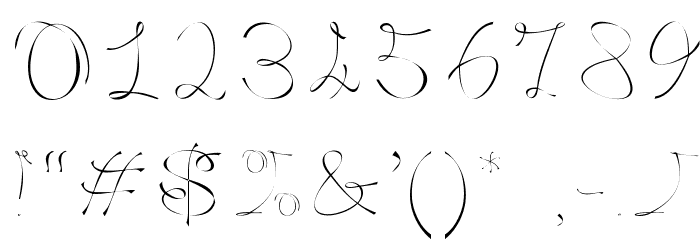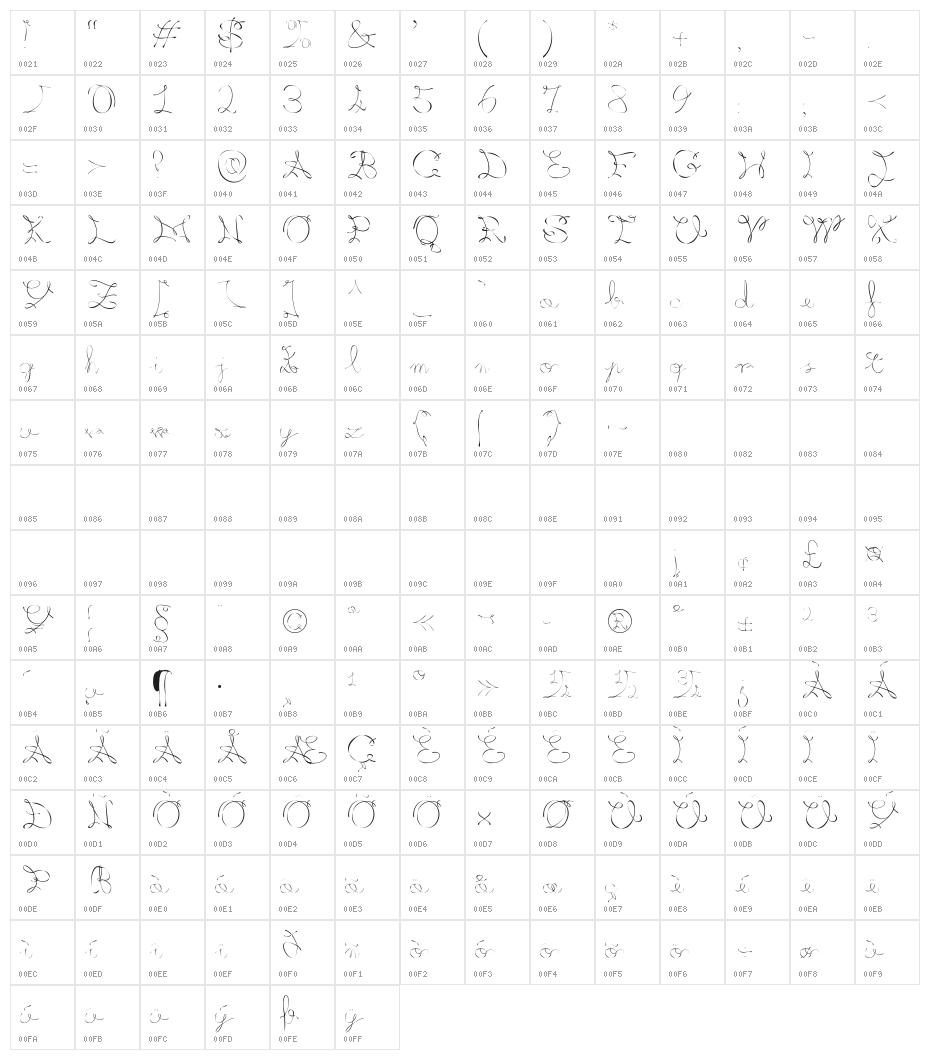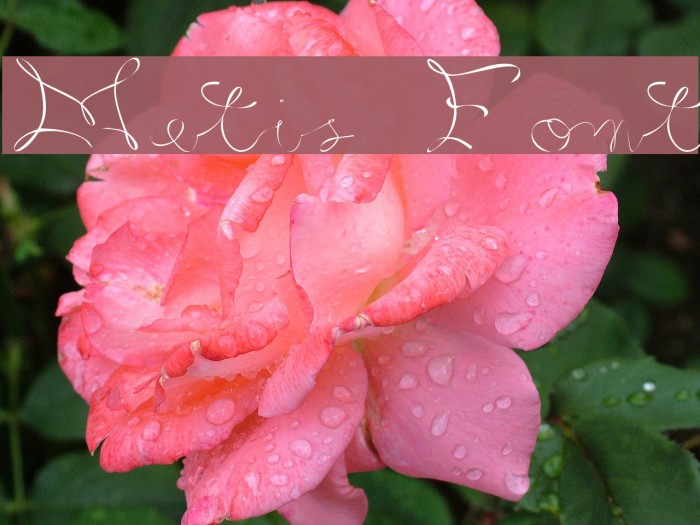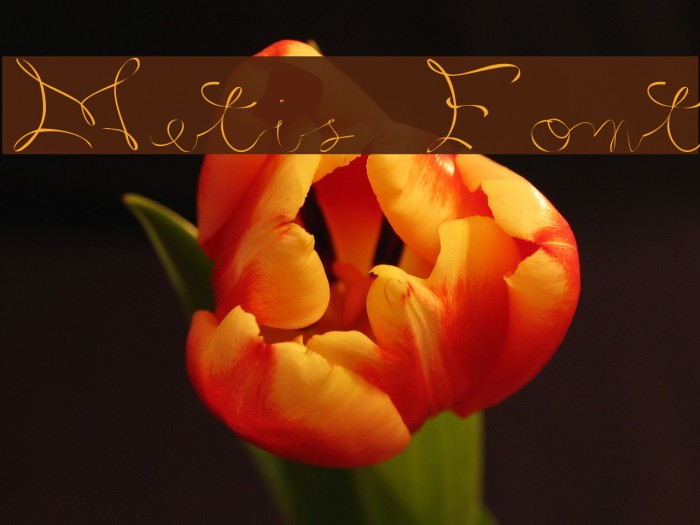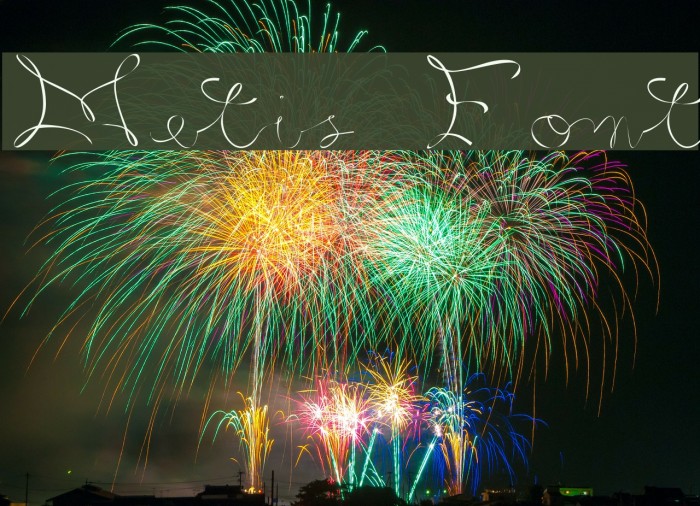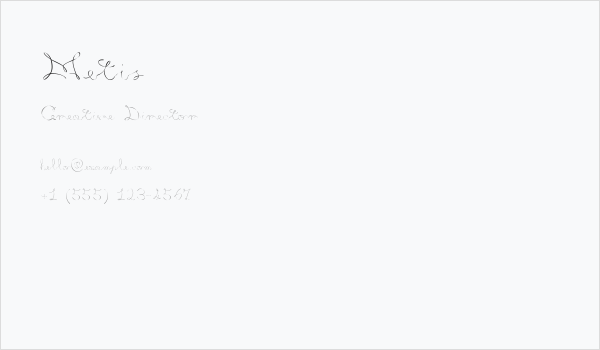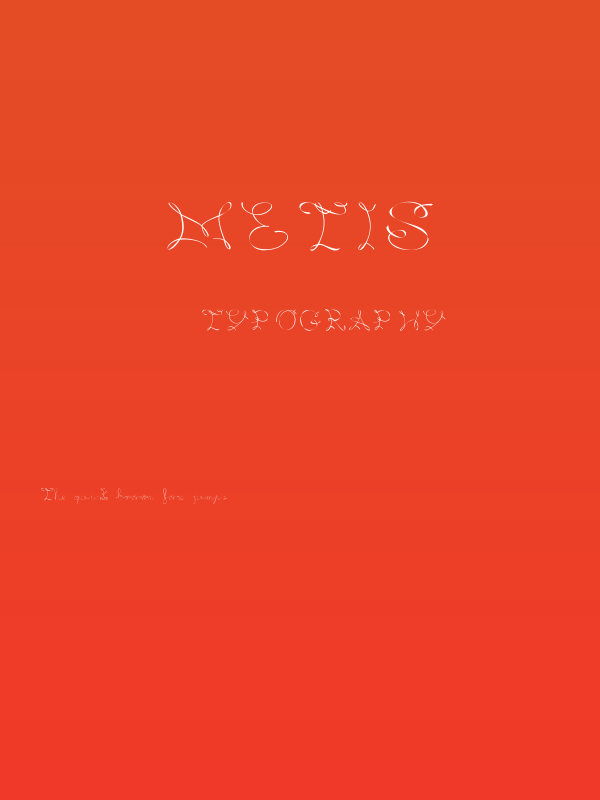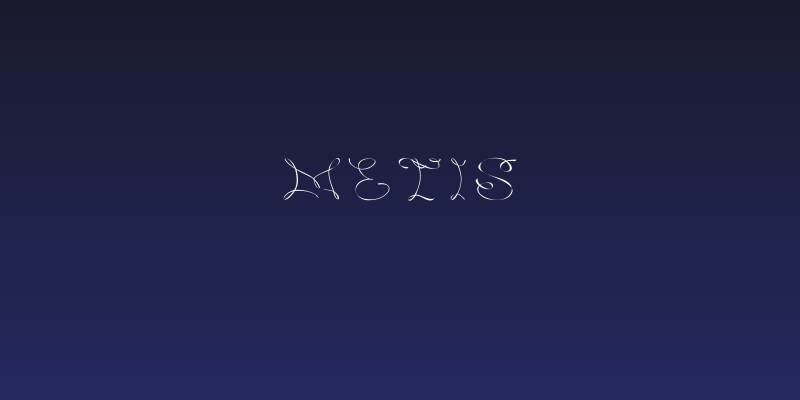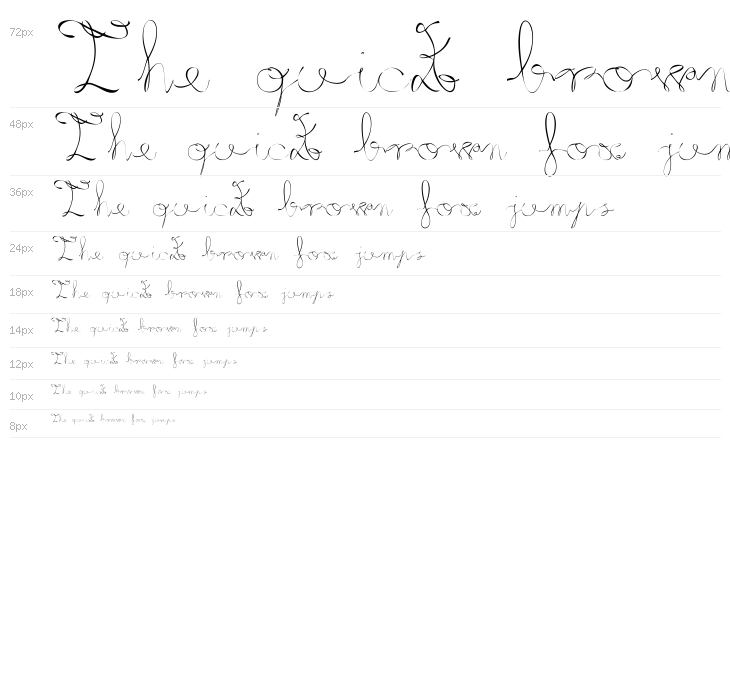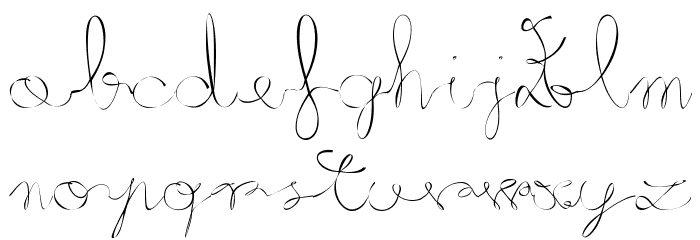
Metis Font
Metis Description
This font features an elegant and intricate design with a flowing, cursive style. Each character is crafted with delicate loops and swirls, giving it a whimsical and artistic appearance. The strokes are thin and graceful, with a consistent flow that connects each letter seamlessly. This font exudes a sense of sophistication and creativity, making it ideal for projects that require a touch of elegance and flair. The numbers and special characters maintain the same artistic style, ensuring a cohesive look across all text elements.
| Proposed Projects | Ideal for wedding invitations, artistic branding, elegant stationery, and creative projects requiring a sophisticated touch. |